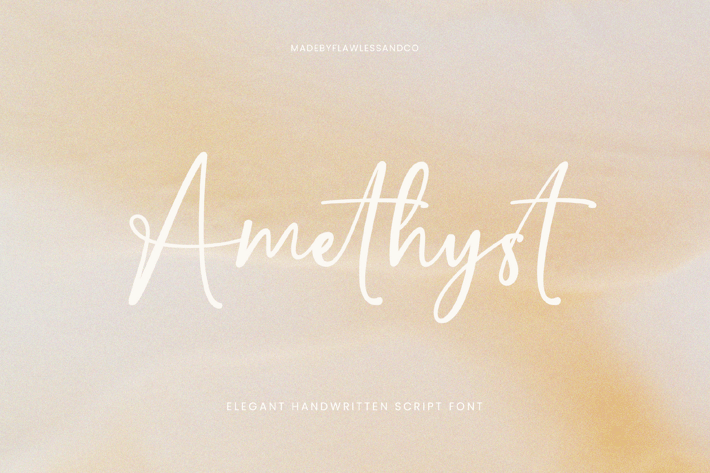
Amethyst Handwritten Script Font
Introducing "Amethyst" an elegant handwritten script font. Indulge in the timeless beauty of "Amethyst," an exquisite handwritten script font that exudes elegance and sophistication. With its graceful curves and delicate lines, Amethyst adds a touch of refined charm to any project, from wedding invitations, and interior design to luxury branding.
Uppercase alphabet A-Z
Lowercase alphabet a-z
Numbers 0-9
Some punctuation